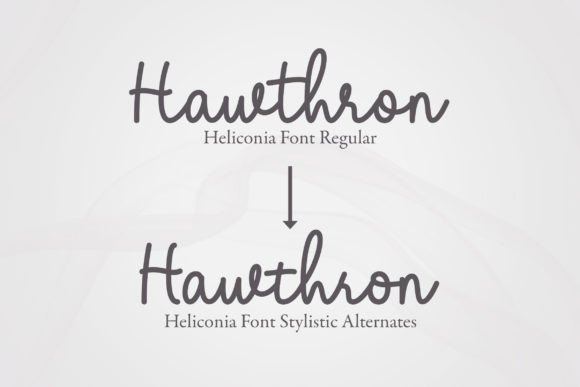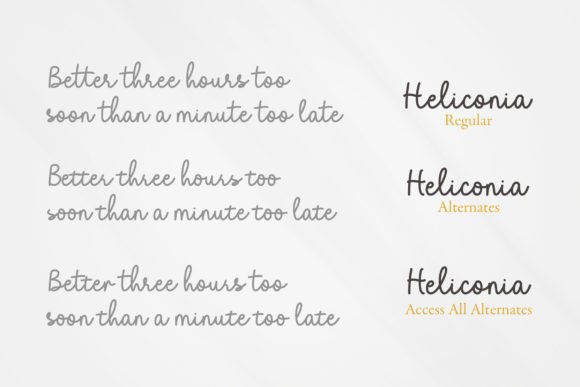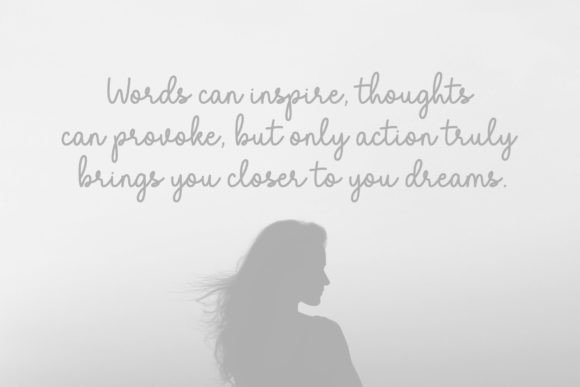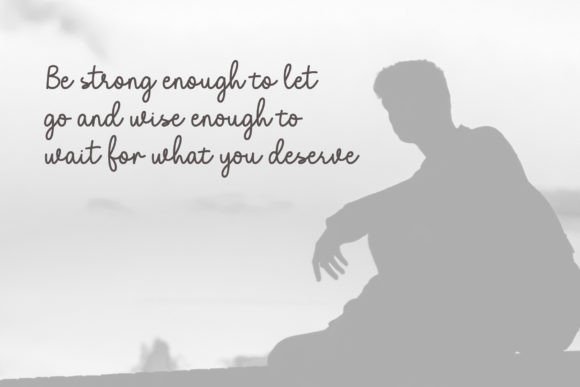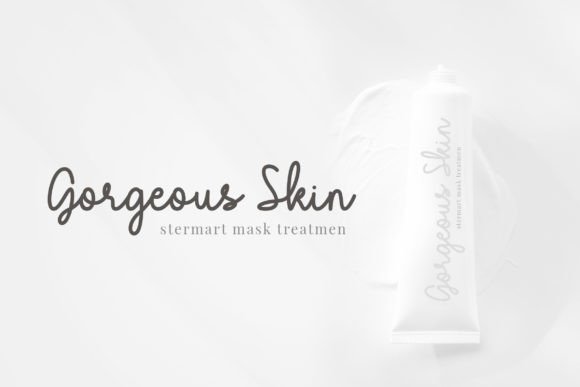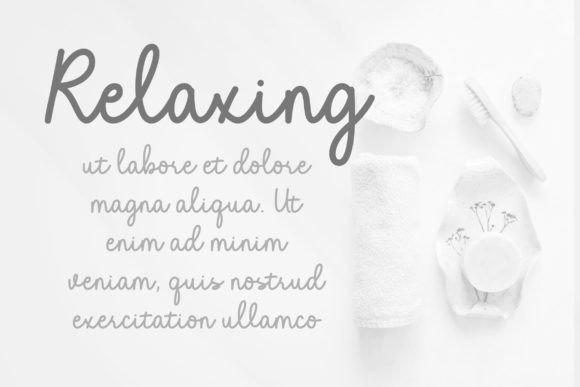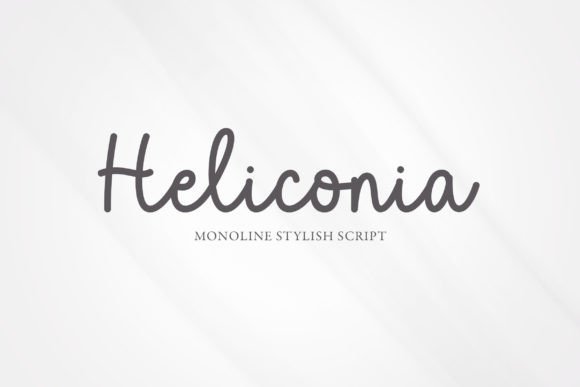
Introducing Heliconia Font: Elevate Your Designs with Elegance and Sophistication
In the world of typography, a font can make or break a design. For designers and crafters, finding the perfect font that adds a touch of elegance and sophistication to their creations can be a daunting task. However, if you’re looking for a font that can elevate your designs and make them stand out, look no further than Heliconia Font. This dazzling script font is a game-changer, and in this article, we’ll explore what makes it a must-have in your font library.
What is Heliconia Font?
Heliconia Font is a beautifully crafted script font that exudes elegance and sophistication. With its neat and highly detailed design, this font is perfect for a wide range of design projects, from branding and advertising to packaging and digital media. Whether you’re a designer, crafter, or DIY enthusiast, Heliconia Font is an excellent addition to your font collection.
Key Features of Heliconia Font
So, what sets Heliconia Font apart from other fonts? Here are some of its key features:
• PUA Encoded: Heliconia Font is PUA (Private Use Area) encoded, which means you can access all glyphs with ease. This feature makes it simple to use and customize the font to suit your design needs.
• Highly Detailed: The font is meticulously crafted with attention to detail, ensuring that it looks stunning in any design project.
• Versatile: Heliconia Font can be used for a wide range of design projects, from formal and elegant designs to more creative and playful ones.
Why Choose Heliconia Font?
With so many fonts available, why choose Heliconia Font? Here are some compelling reasons:
• Elegance and Sophistication: Heliconia Font adds a touch of elegance and sophistication to any design project, making it perfect for high-end branding, luxury packaging, and more.
• Unique and Creative: The font’s unique design ensures that your designs stand out from the crowd, making it ideal for creative projects and designs that require a personal touch.
• Time-Saving: With Heliconia Font, you can save time and effort in your design projects. The font’s versatility and ease of use make it a great asset to your font library.
• Support for Multiple Languages: Heliconia Font supports multiple languages, making it a great choice for designers who work with international clients or create designs for global audiences.
Tips and Tricks for Using Heliconia Font
Here are some tips and tricks to help you get the most out of Heliconia Font:
• Pair it with Other Fonts: Pair Heliconia Font with other fonts to create a unique and creative design.
• Use it for Headings and Titles: Use Heliconia Font for headings and titles to add a touch of elegance and sophistication to your designs.
• Experiment with Colors: Experiment with different colors to find the perfect match for your design.
• Use it for Branding: Use Heliconia Font for branding projects, such as logos, business cards, and letterheads.